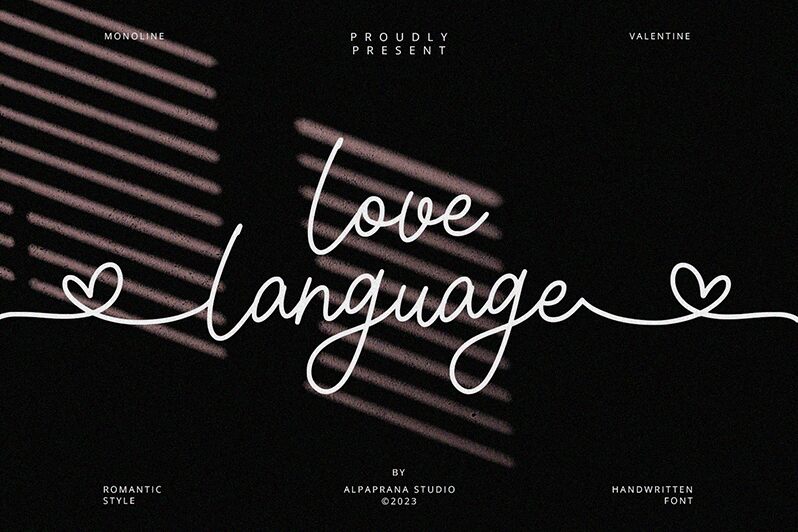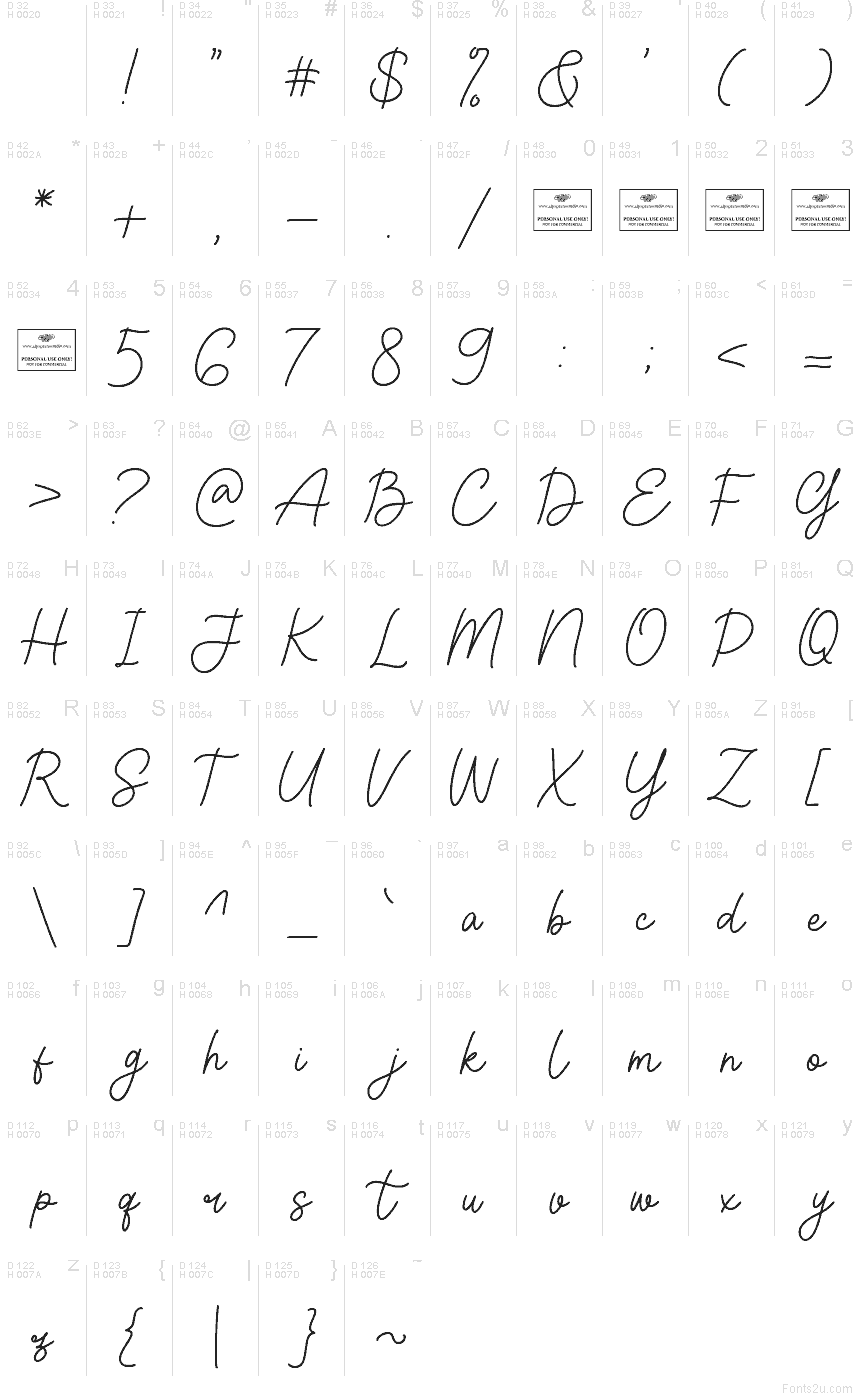
Love Language
Love Language font by Alpaprana Studio is a free holiday handwritten typeface with a romantic, signature-style flow. Its looping strokes feel like fresh ink on smooth stationery, with just enough irregularity to keep it human and heartfelt rather than stiff. The letters connect in an easy, sweeping rhythm, so words look like they were written in one gentle motion across the page.
Using Love Language, this free font shines on Valentine’s cards, wedding invitations, love notes, quote graphics, gift tags, and boutique branding. The airy spacing keeps it legible even at smaller sizes, while larger settings show off its graceful curves. Pair it with a clean, light sans serif for supporting text to let the script headline stay soft, intimate, and center stage.